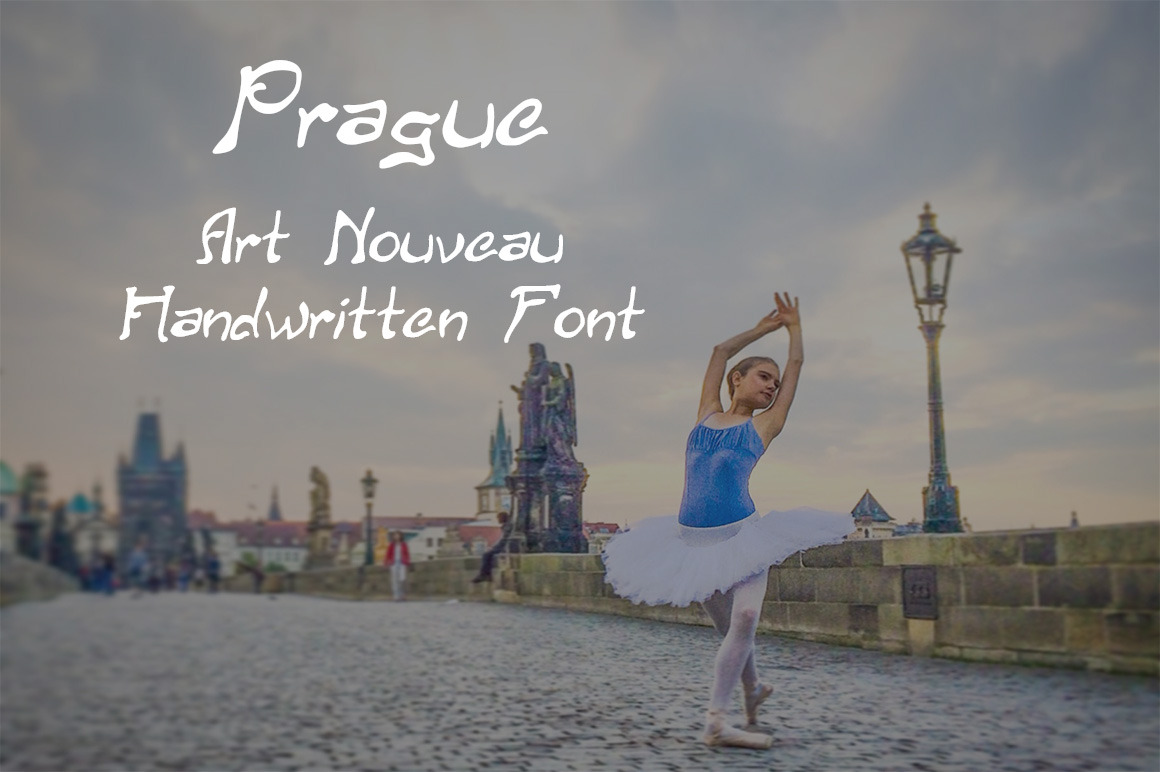
Prague: Handwritten Art Nouveau Font
Prague, inspired by the namesake city, is a whimsical Art Nouveau handwritten font. Simple and elegant, it can be used for quotes, posters, wedding invitations, monograms, logos, branding, etc.